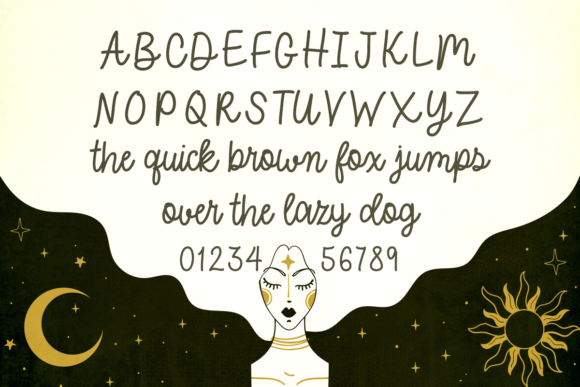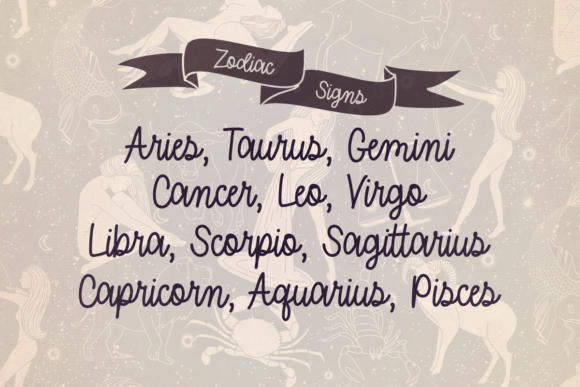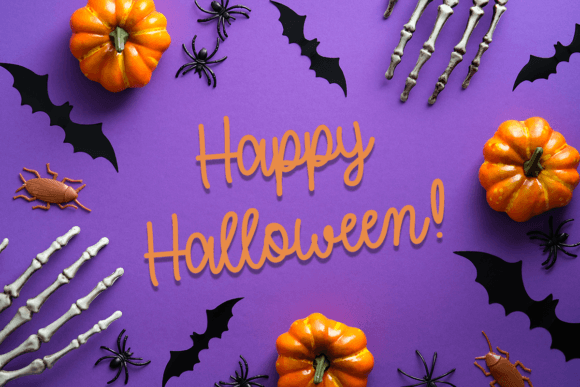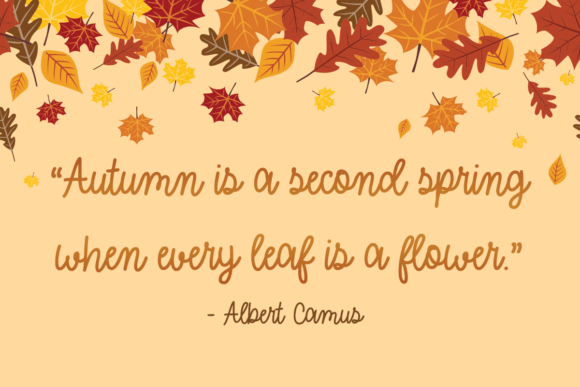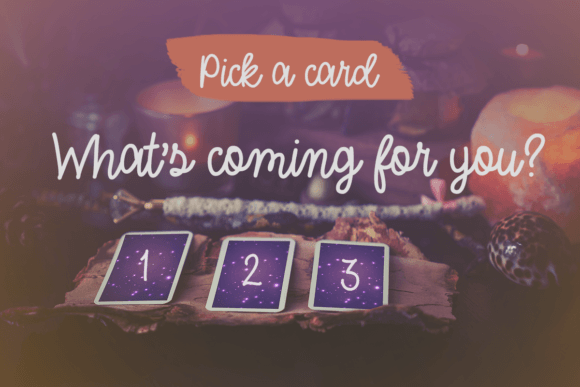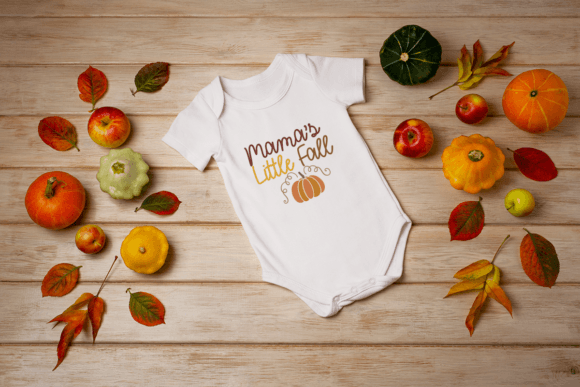
Introducing the Spooky Season’s Latest Addition: Halloween Horoscope Font
As the spooky season approaches, designers and crafters are on the lookout for the perfect typography to add a touch of eeriness and fun to their projects. Look no further than the Halloween Horoscope Font, a super fun handwritten font that’s inspired by the magic and mystery of Halloween. With its unique and playful vibe, this font is perfect for a variety of projects, from logos and sublimation projects to product labels, posters, greeting cards, and more!
The Perfect Font for Your Spooky Season Projects
The Halloween Horoscope Font is designed to capture the essence of the spooky season, with a playful and whimsical feel that’s sure to delight. Its handwritten style gives it a personal and friendly touch, making it perfect for projects that require a more approachable and relatable tone. Whether you’re creating a logo for a Halloween-themed business, designing a product label for a spooky treat, or crafting a greeting card for a friend, this font is sure to add a touch of magic to your project.
What Makes Halloween Horoscope Font So Special?
So, what sets the Halloween Horoscope Font apart from other fonts? Here are just a few reasons why this font is a must-have for designers and crafters:
- Unique and Playful Design: The Halloween Horoscope Font features a one-of-a-kind design that’s both spooky and fun. Its playful curves and swirls make it perfect for adding a touch of whimsy to your projects.
- Versatile: This font is incredibly versatile, making it perfect for a wide range of projects, from logos and branding to product labels, posters, and more.
- High-Quality: This font is designed with high-quality and clarity in mind, ensuring that it looks great in any project, whether it’s printed or digital.
Ideas for Using the Halloween Horoscope Font
The Halloween Horoscope Font is perfect for a wide range of projects, including:
- Logos and Branding: Create a spooky and memorable logo for your Halloween-themed business or product.
- Sublimation Projects: Add a touch of magic to your sublimation projects, such as t-shirts, mugs, and more.
- Product Labels: Create eye-catching product labels for your spooky treats and products.
- Posters and Flyers: Design spooky and eye-catching posters and flyers for your Halloween events and promotions.
- Greeting Cards: Create personalized and spooky greeting cards for your friends and family.
Tips for Getting the Most Out of the Halloween Horoscope Font
Here are a few tips for getting the most out of the Halloween Horoscope Font:
- Experiment with Different Sizes and Colors: Try out different sizes and colors to see what works best for your project.
- Pair it with Other Fonts: Pair the Halloween Horoscope Font with other fonts to create a unique and eye-catching look.
- Use it in Combination with Images: Use the Halloween Horoscope Font in combination with spooky images to create a truly unforgettable project.